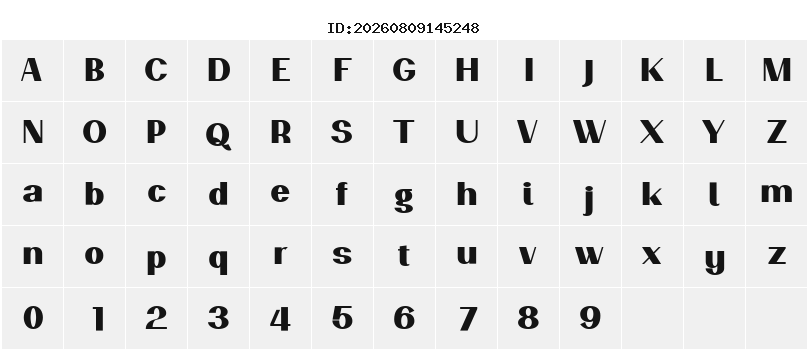
• Font Name: PassionSansPDao
• Font Style: ExtraBold
• Manufacturer: Prescott Design
About PassionSansPDao.ttf
PassionSansPDao.ttf is a modern, elegant sans-serif font designed for ultimate readability and visual harmony. Perfect for branding, headlines, web design, and print materials.